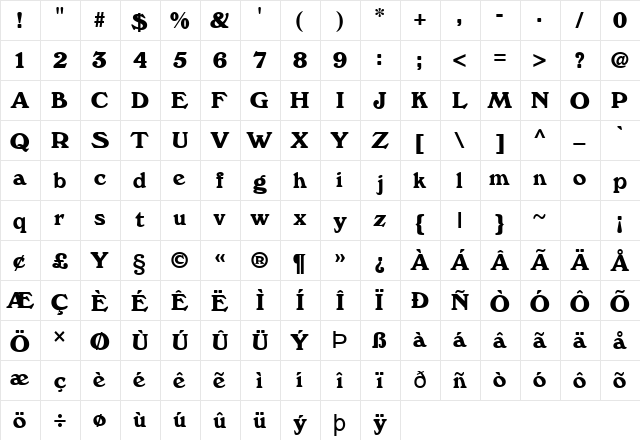
Dictionary Normal
Design Context for Dictionary Typeface
Dictionary takes a measured approach to typography — its balanced proportions and neutral character make it a reliable workhorse for both digital and print work.